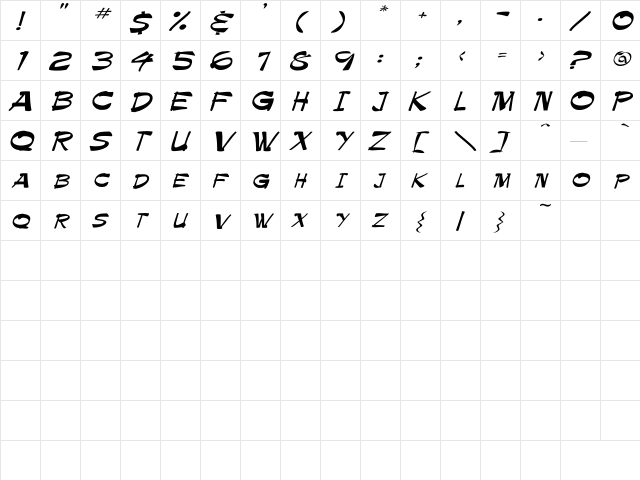
Paintbrush Wd Regular
Design Context for Paintbrush Wd Typeface
Paintbrush Wd flows with the natural rhythm of handwritten lettering, making it ideal for designs that call for warmth and personal expression.
Font Pairing: Combine Paintbrush Wd with a simple geometric sans for maximum contrast — the tension between flowing curves and clean structure is a classic typographic pairing.
Pro Tip: Pair Paintbrush Wd with a clean sans-serif for supporting text. The contrast between fluid script and geometric structure creates an elegant typographic hierarchy.